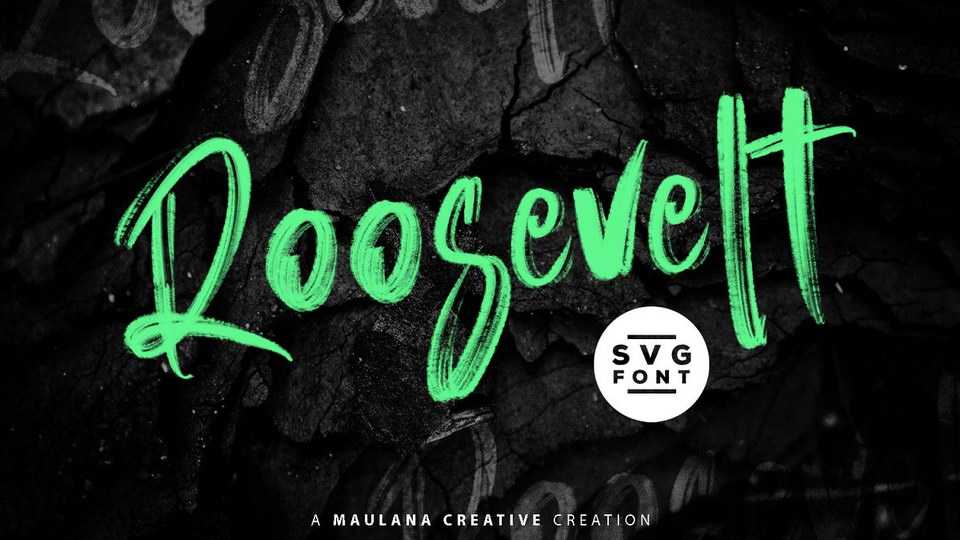
Download Roosevelt font, an impressive script that give your designs an authentic handcrafted brush feel. Roosevelt script is perfectly suited to logo, magazine or book cover, clothing, branding and more.
Designer: Maulana Creative